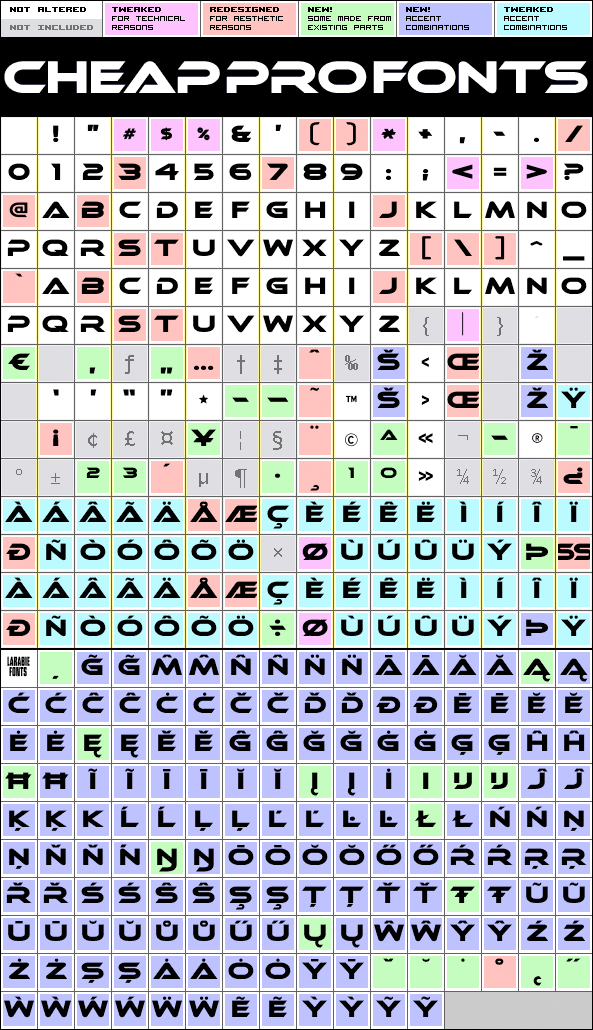
Ethnocentric Pro
Ethnocentric by Ray Larabie
Designer:
Ray Larabie
Highlights:
352 glyphs!
(177 in original)
264 class kernpairs
= 17824 kerning pairs
(483 in original)
Description:
Another clean and stylistic font from Ray Larabie with just an uppercase alphabet - all the letters are duplicated in the lowercase positions. I have cleaned up the outlines, extended the T and 7 a bit, corrected the AE and OE ligatures, and redesigned the diacritics before expanding the character set.
Ray Larabie says: "Wide, Sans-serif display type. Inspired by hand lettering on a small-town hair salon."
Ethnocentric Pro is a professionally reworked font that contains an extended character set for setting text in 65 languages requiring more than the basic A-Z!